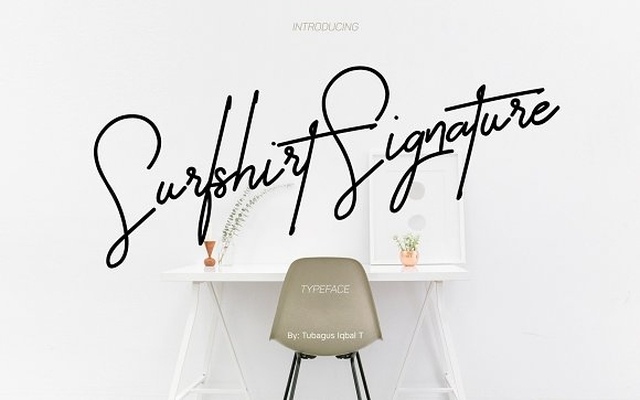
Surfshirt Signature
The Surfshirt Signature Font excels in casual design applications including beach brand identities, surf shop logos, coastal product packaging, relaxed wedding invitations, laid-back business cards, artistic portfolios, breezy greeting cards, coastal social media graphics, beach event signage, and surf-inspired marketing materials. Its casual script style makes it perfect for projects requiring beachy elegance that communicates relaxation and establishes coastal brand positioning with audiences seeking ocean-inspired experiences and surf sophistication.
What makes the Surfshirt Signature Font truly exciting is its exceptional ability to capture the laid-back spirit and coastal charm of surf culture through relaxingly crafted letterforms. The font features flowing, wave-inspired strokes with breezy flourishes and casual proportions that create a distinctly coastal appearance. Each character displays masterful attention to surf detail with ocean curves, wave-like connections, and relaxed spacing that give text a beachy, hand-lettered quality. The font's surf character and coastal rhythm create an atmosphere of ocean freedom while maintaining elegant sophistication and beach authenticity.
The Surfshirt Signature Font family typically includes regular weight with extensive character coverage, featuring uppercase and lowercase letters, numerals, punctuation marks, and international characters. The typeface often incorporates stylistic alternates, contextual ligatures, and wave-inspired swashes that enhance its signature beach appeal. These additional elements provide designers with creative flexibility to customize text appearance and achieve more natural-looking coastal handwriting that reflects the font's surf and beach character.
This coastal signature font distinguishes itself through its remarkable balance of relaxation and professional appeal. Unlike rigid corporate fonts that lack beach vibes, Surfshirt Signature Font embraces the power of coastal design to create relaxing connections with audiences. The font's surf character makes it essential for beach brands, coastal businesses, and ocean-inspired projects where capturing the laid-back lifestyle and promoting relaxation is fundamental to success in surf and coastal markets.